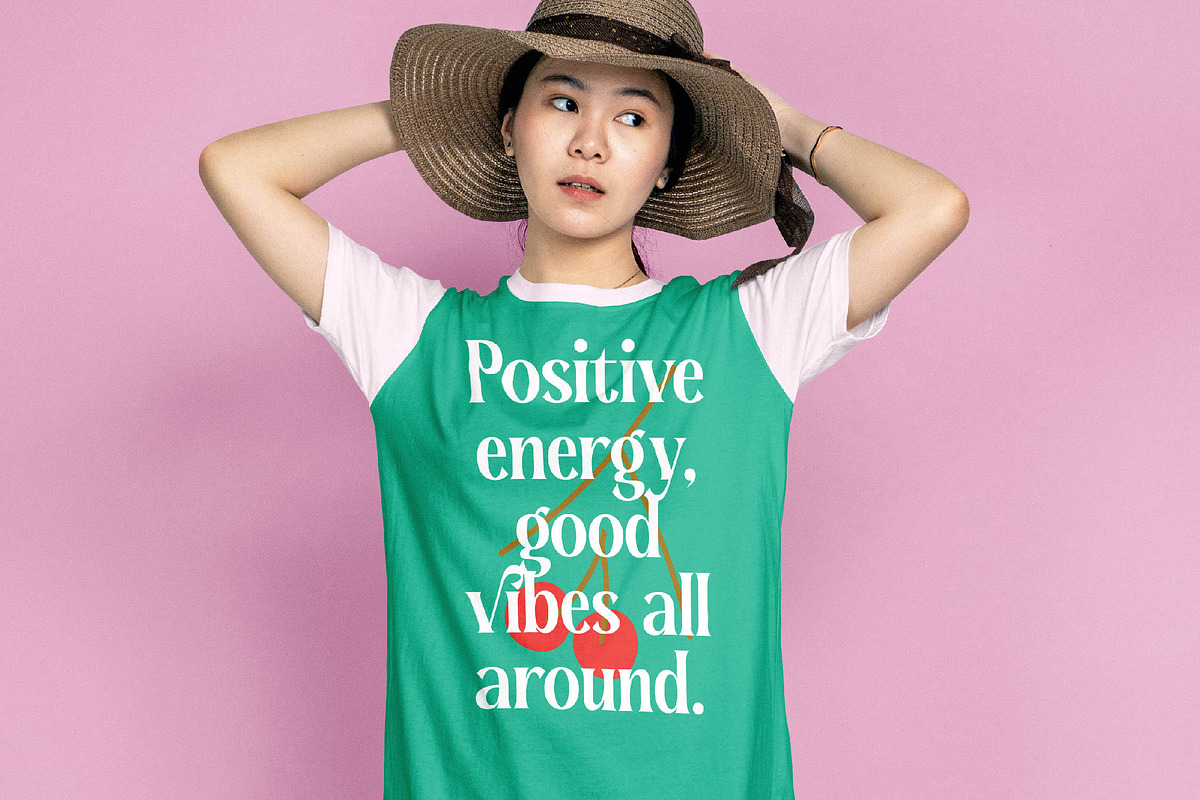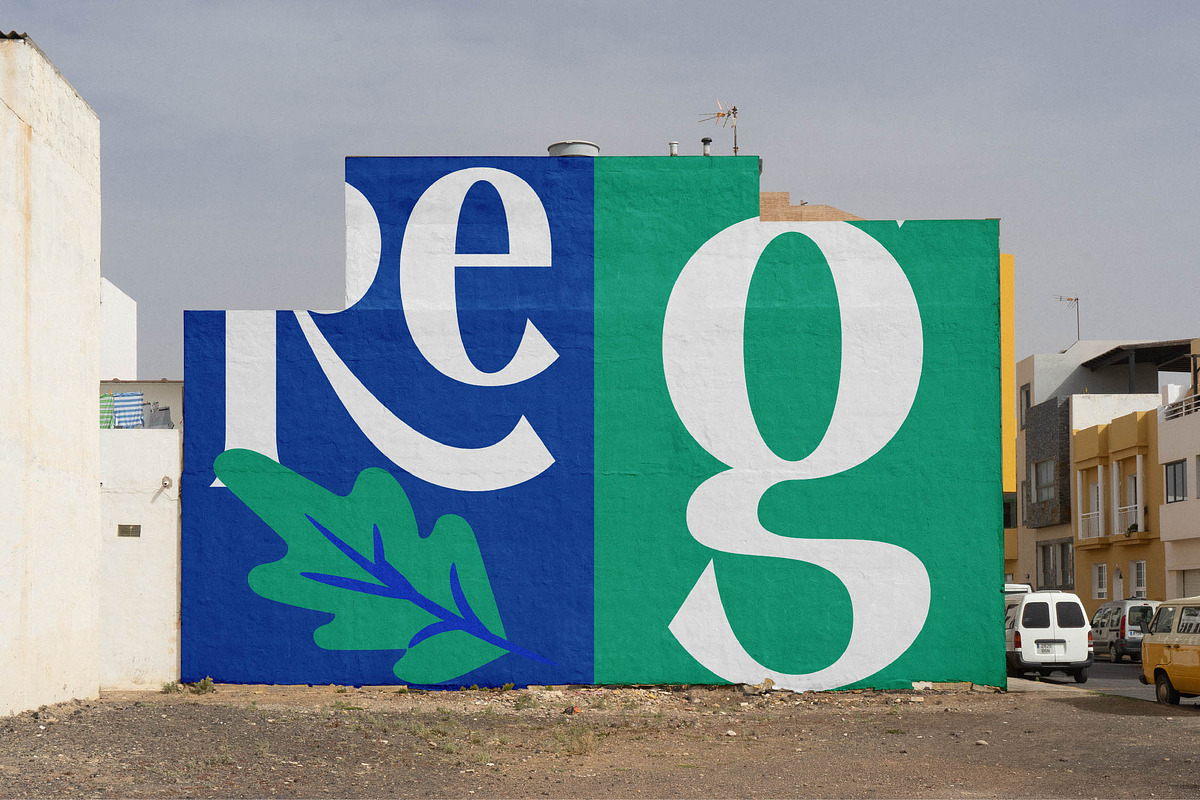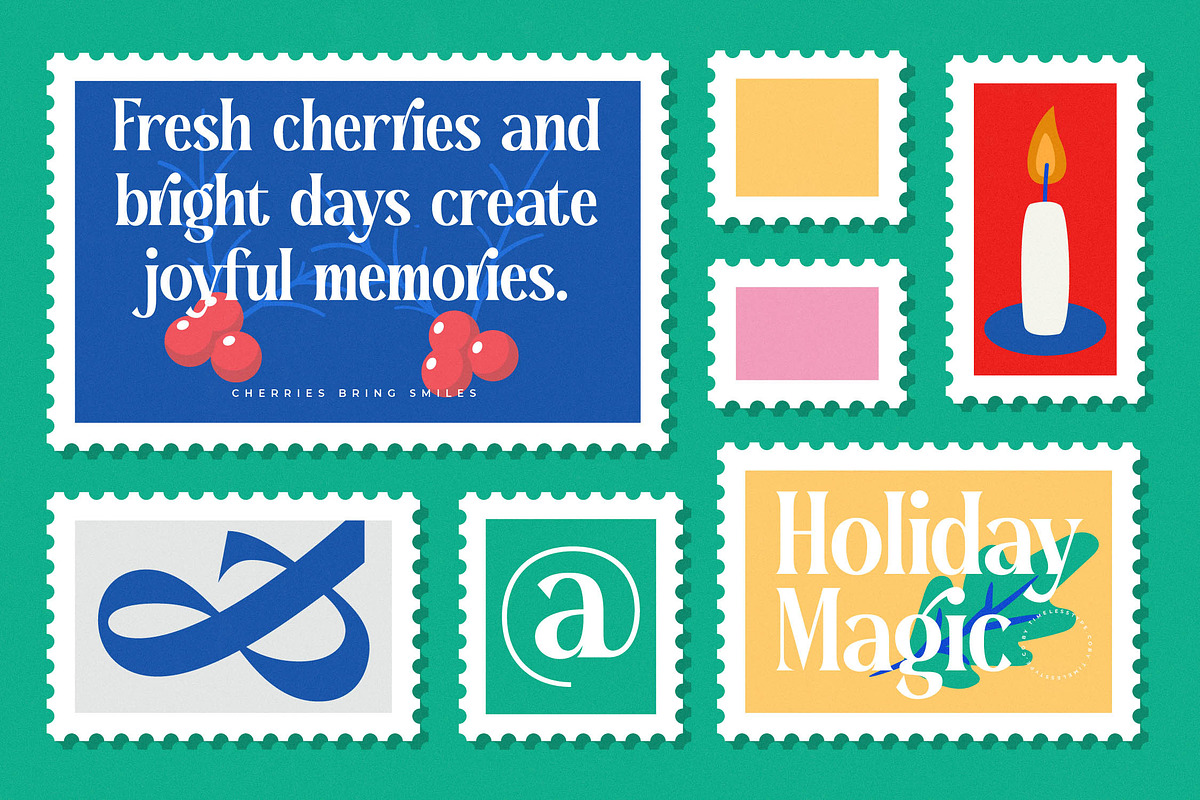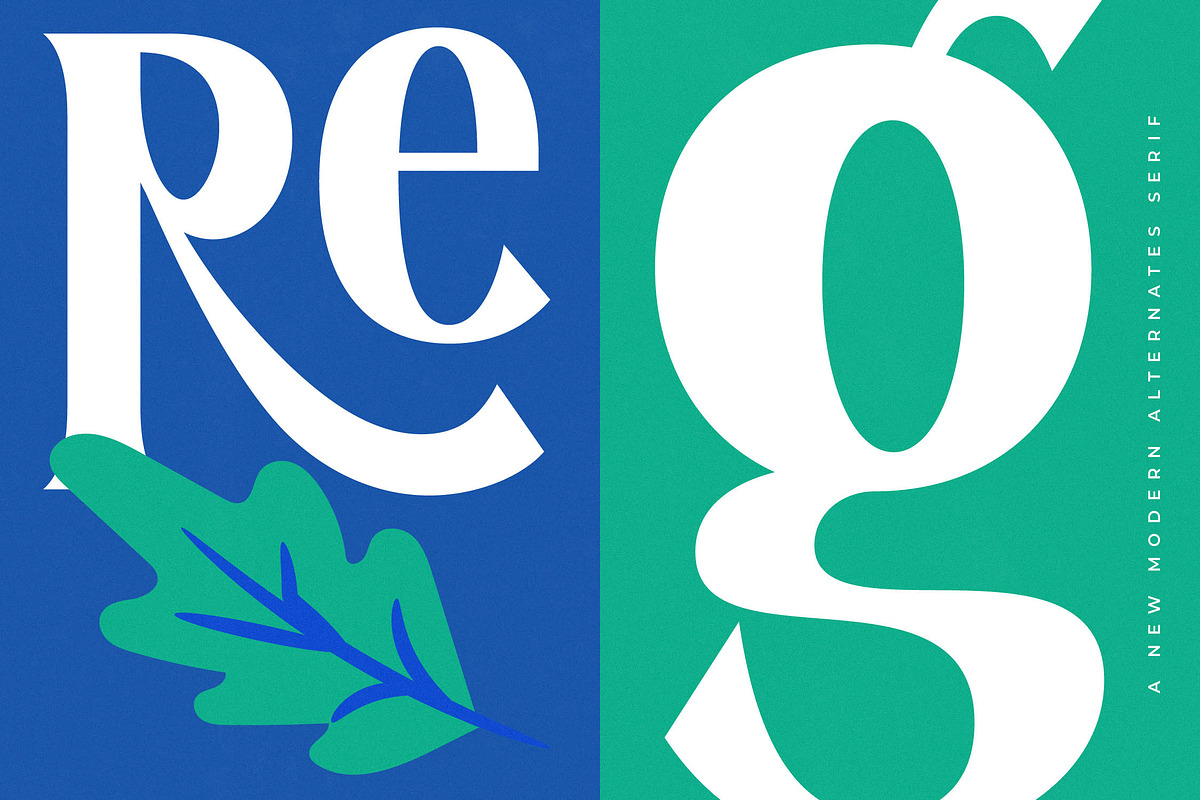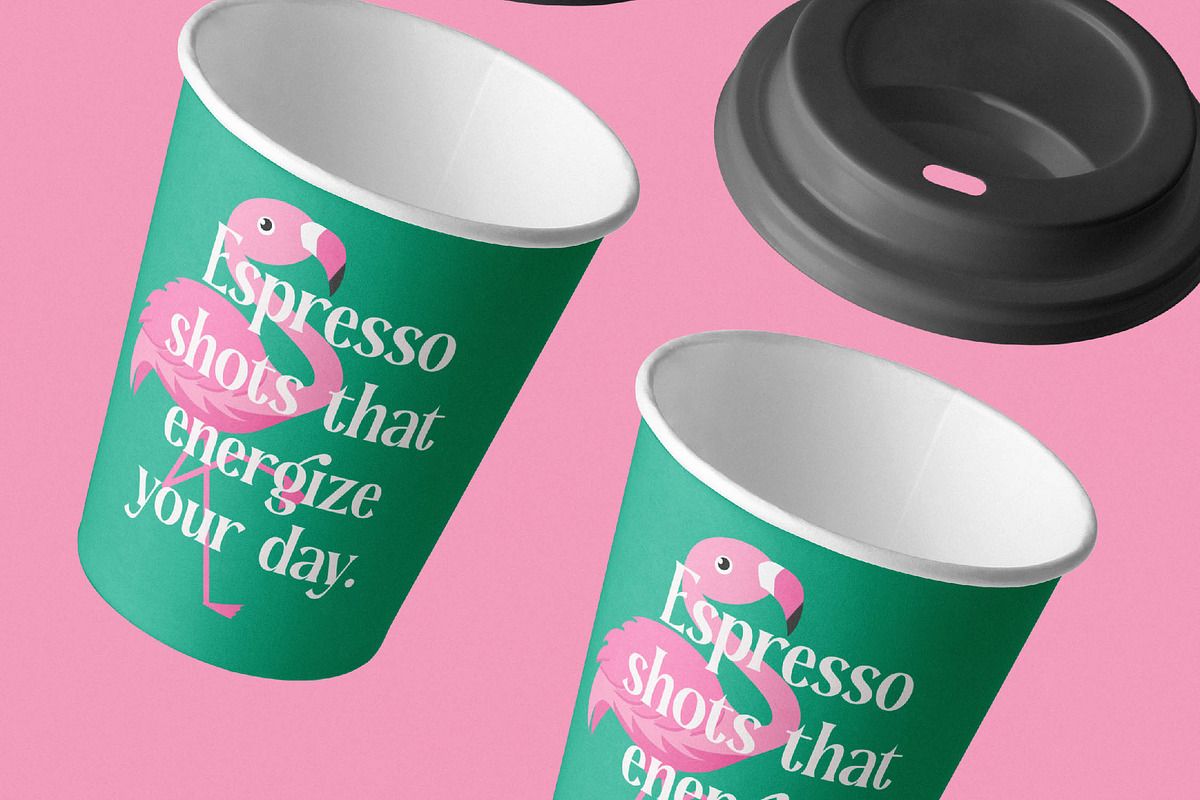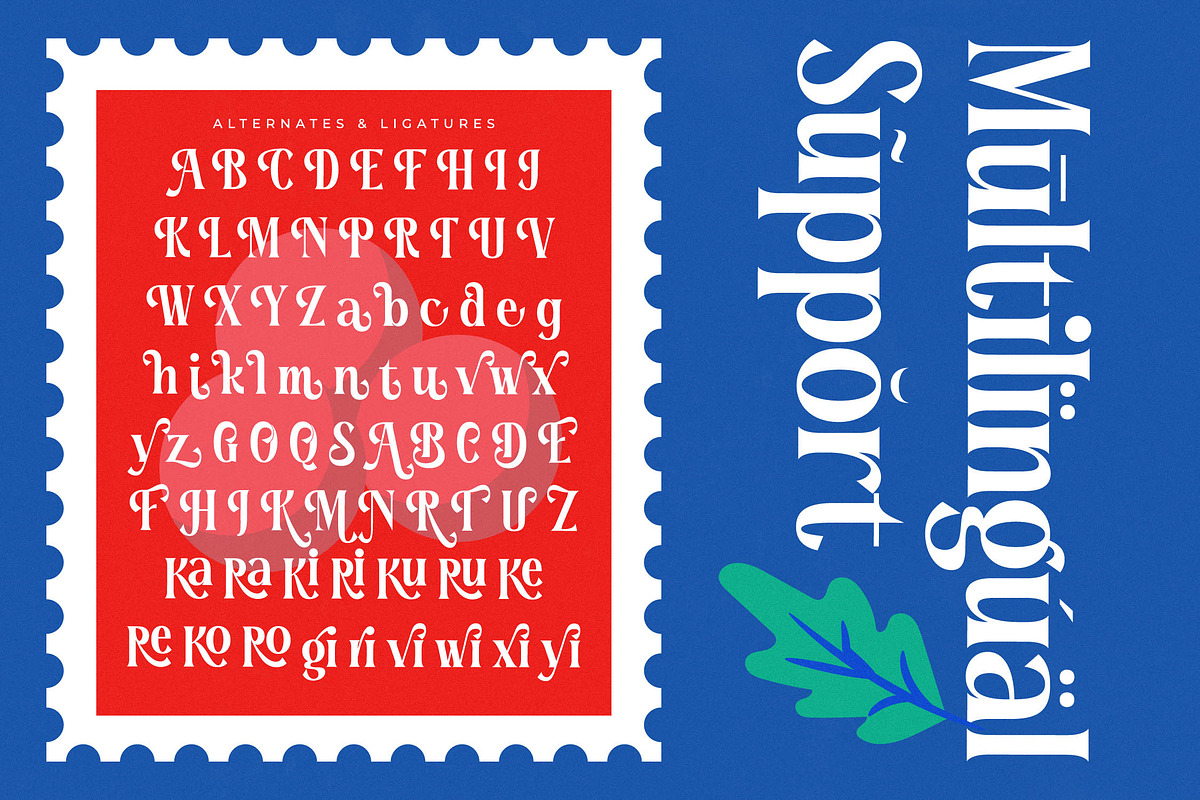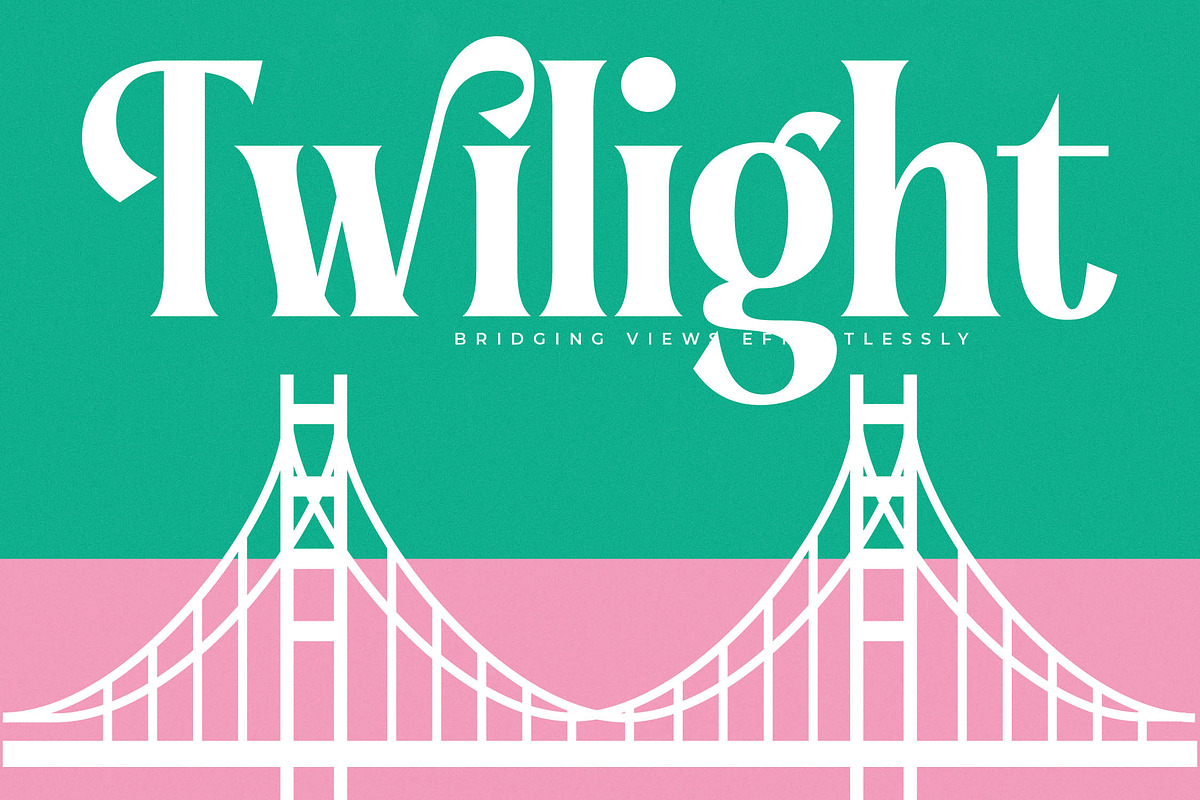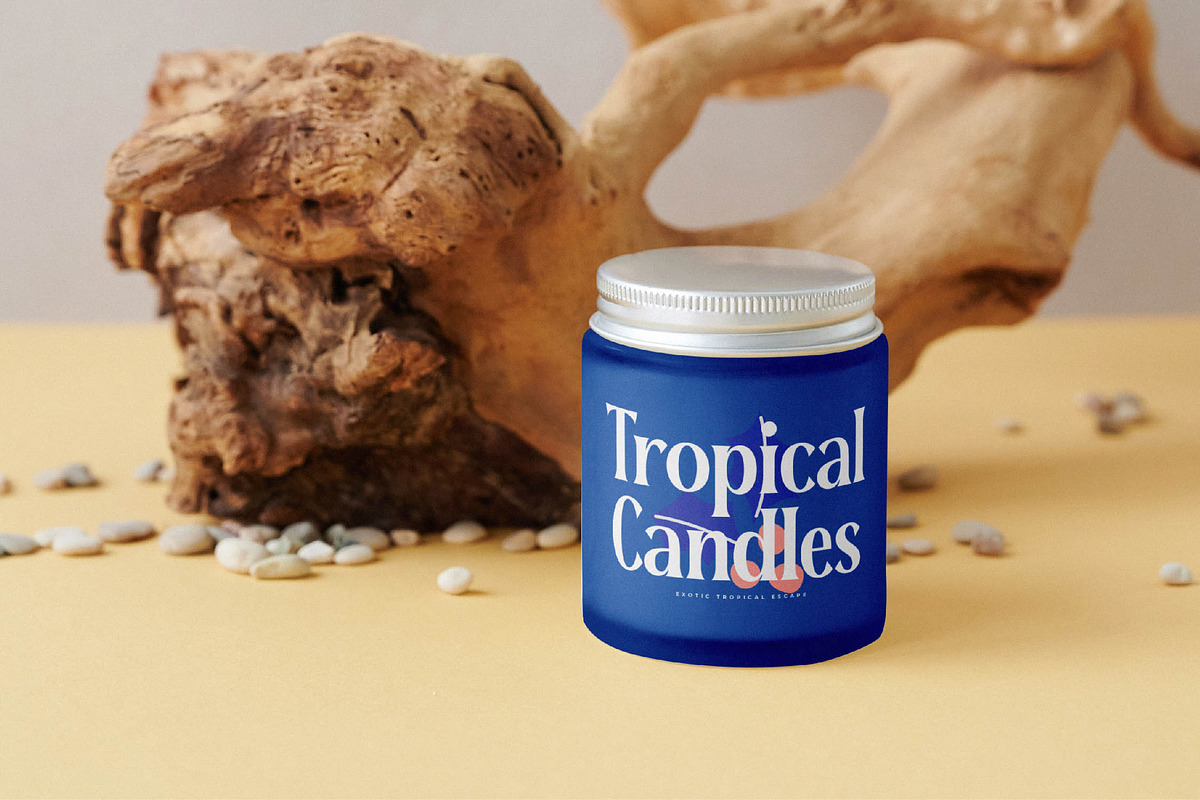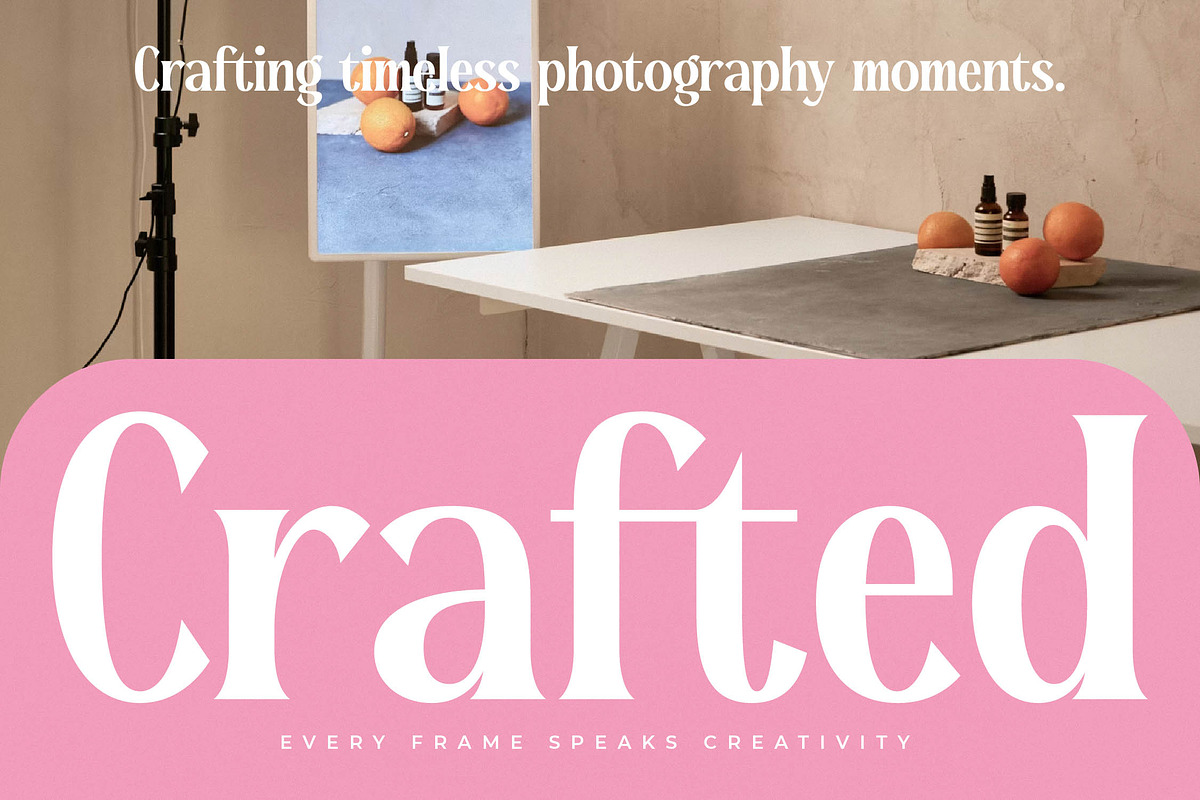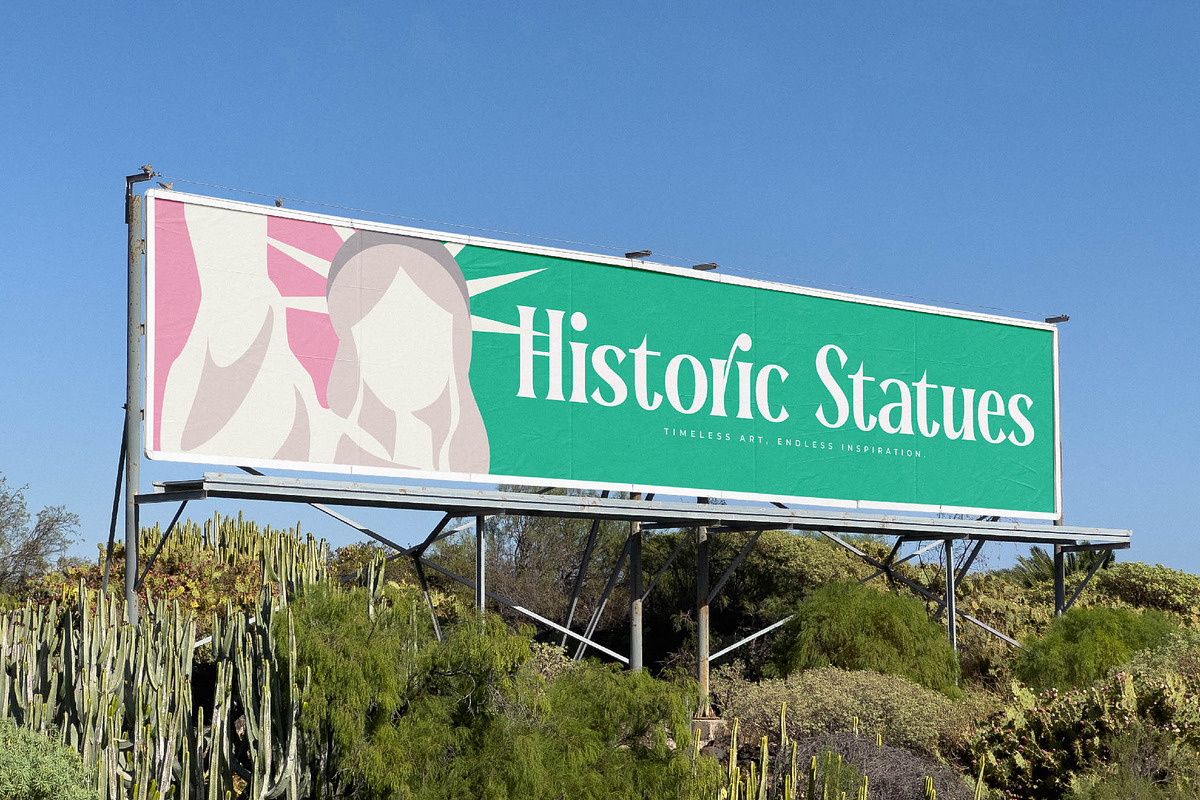
Regolvis Modern Display Serif
Experience the sophisticated charm of Regolvis, a font that breathes life into every design with its unique blend of classic elegance and modern flair. It is more than just a typeface; it is a statement piece designed to elevate your creative projects to a professional level.
Drawing inspiration from vintage postage stamps and mid-century editorial layouts, this font captures a whimsical yet refined atmosphere. The design team focused on creating a rhythmic flow between characters, ensuring each letter feels like a handcrafted piece of art that tells a story of heritage and innovation.
This modern serif display is defined by its striking balance of delicate curves and bold strokes, making it the perfect choice for luxury typography and branding impact. Its high-contrast serif design commands attention on the page while maintaining an editorial font quality that feels both timeless and exceptionally current.
As the modern serif trend continues to dominate the visual landscape, this typeface stands out by offering character-driven typography that goes beyond the standard. It meets the growing demand for editorial display fonts that provide a distinct personality, allowing designers to break away from generic styles and embrace a more bespoke aesthetic.
Whether you are working on a high-end logo design or a comprehensive branding identity, this font delivers versatility across a variety of mediums. It is an ideal choice for editorial layouts, premium packaging, romantic wedding stationery, and avant-garde fashion lookbooks where visual distinction is paramount.
The package is loaded with over 400 glyphs, including a vast array of ligatures and alternates that allow for endless customization. With decorative swashes and full multilingual support for international characters, you have all the tools necessary to create truly global designs.
- Ligature 20 Alternate 60